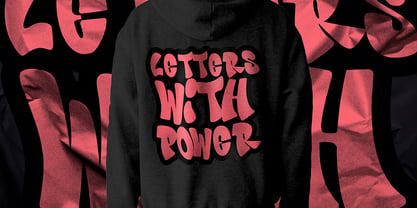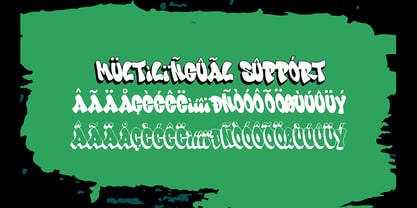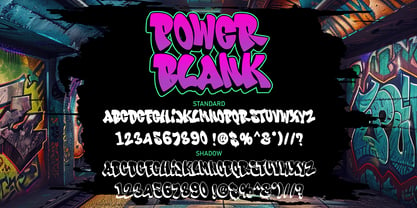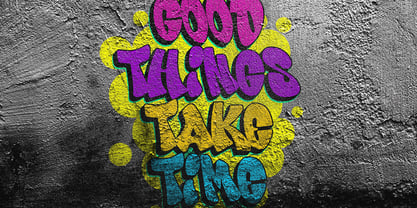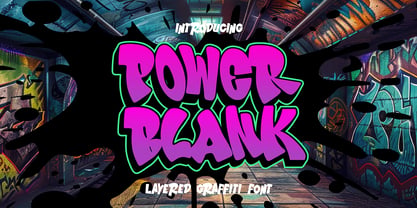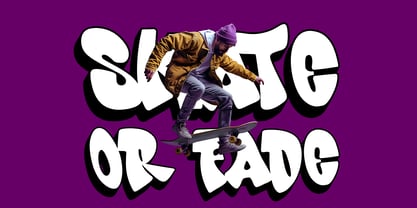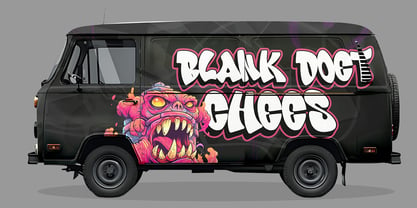
Power Blank
by Sipanji21
The Power Blank Font Family was designed by Sipanji and published by Sipanji21. Power Blank contains 2 styles and family package options. More about this family
Power Blank is a striking layered graffiti font that infuses your designs with the energetic essence of street art. Featuring bold bubble characters, layered effects, and thick outlines, this font is perfect for a range of applications including logos, merchandise, posters, apparel, and digital graphics that require a strong graffiti aesthetic. The unique layered design invites creativity, allowing for diverse color combinations and innovative typography. Whether you're crafting branding projects, social media visuals, or vibrant marketing campaigns, Power Blank offers a youthful, dynamic, and street-savvy style. Its ease of use and versatility make it an essential choice for designers passionate about graffiti culture who aim to make their work pop.